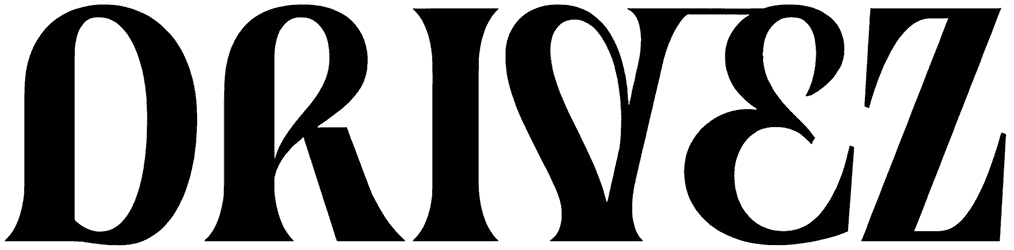
Qaligo Font
Qaligo can transform simple words into something more serious and classy. This serif font has a powerful feeling to it and every character in it has a bold and curled design. You can use it for movie names and posters, sales, events, and fancy party flyers, and book titles. Qaligo does not have a numeral or punctuational character set.
Introducing Qaligo Serif Font – A Brand New Serif Font with Luxury Shape, More Opentype Feature, more neat curves
Qaligo Serif Font Inspired by Modern and Luxury Typography. Qaligo Serif Font is a very versatile font. you can use this font to various design. Basics can improve more than 250 alternates character where can collaborate with premade logos.